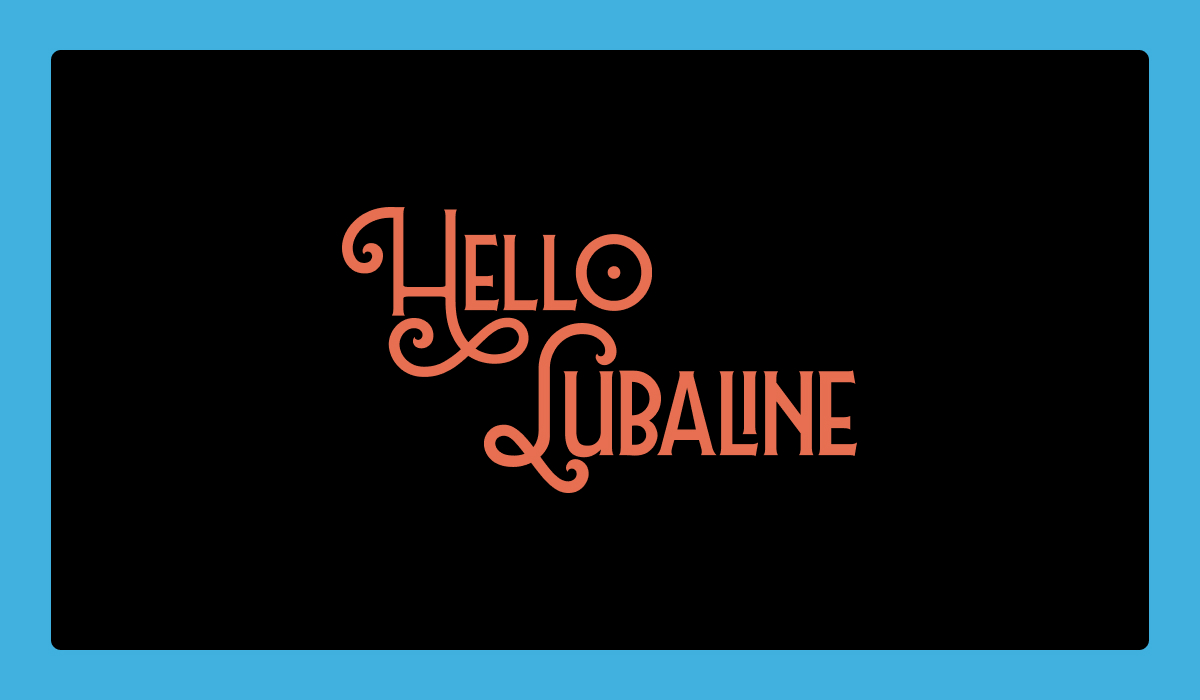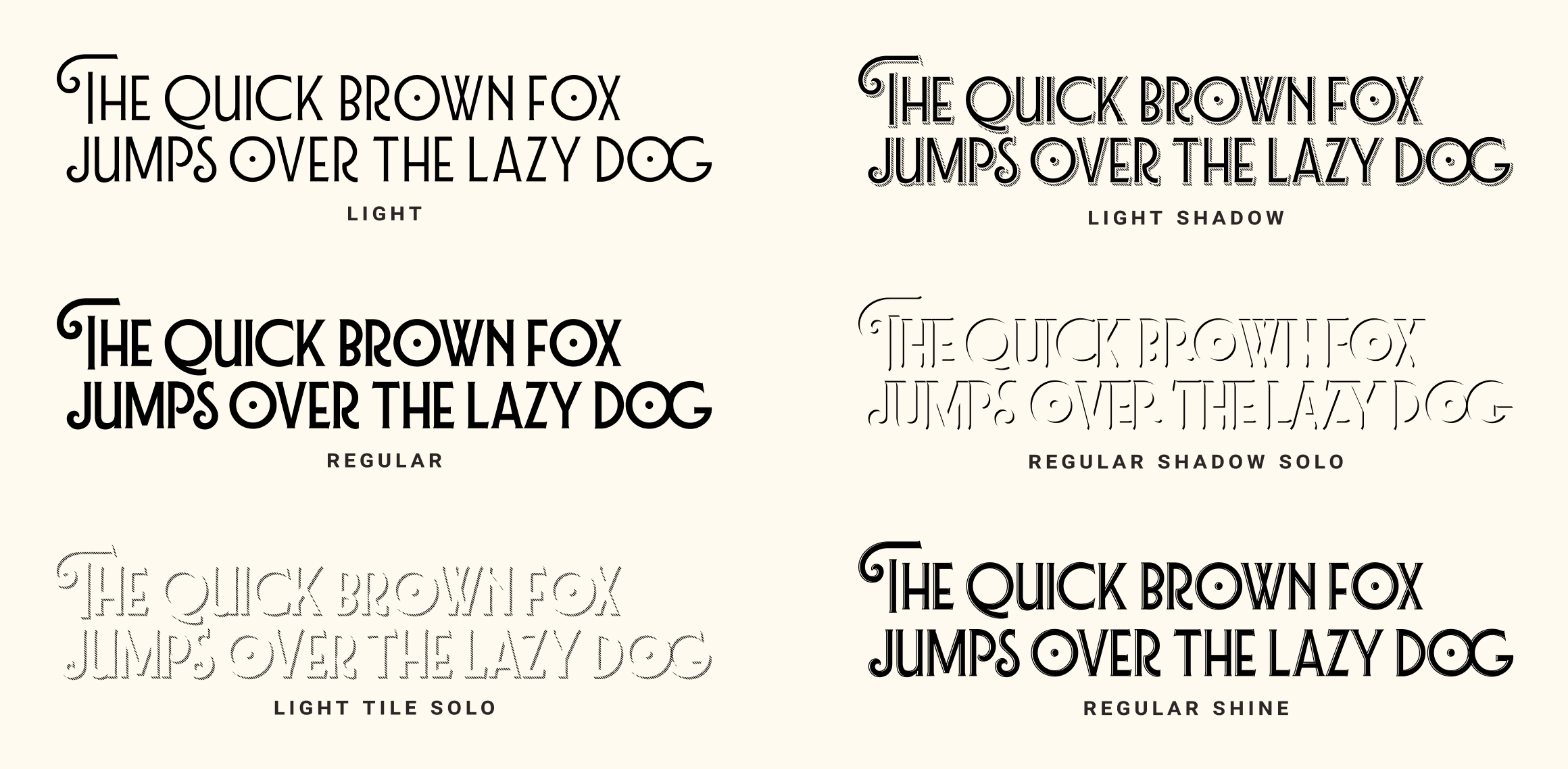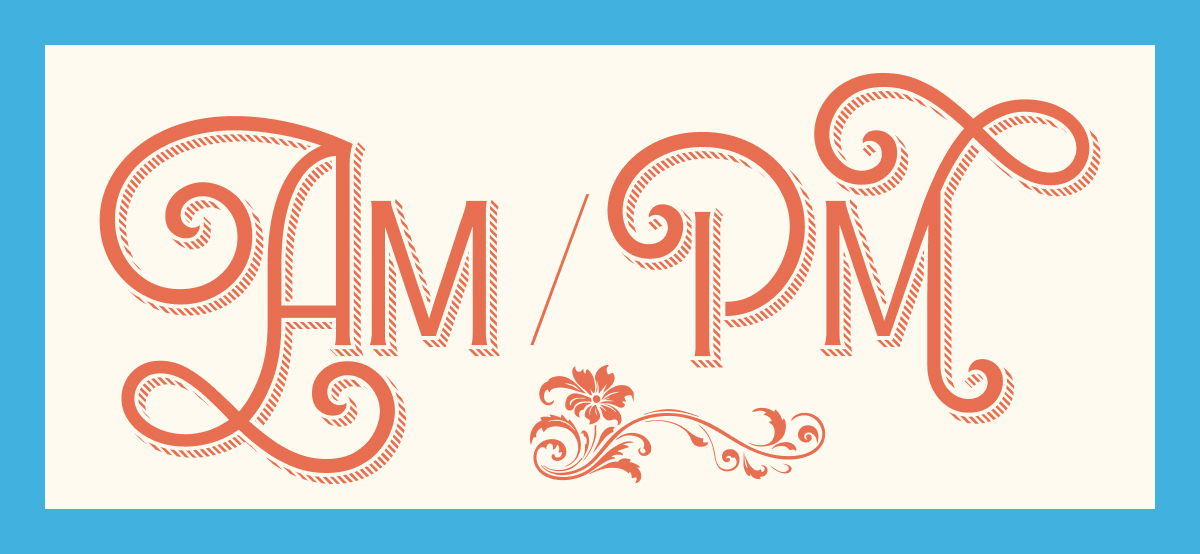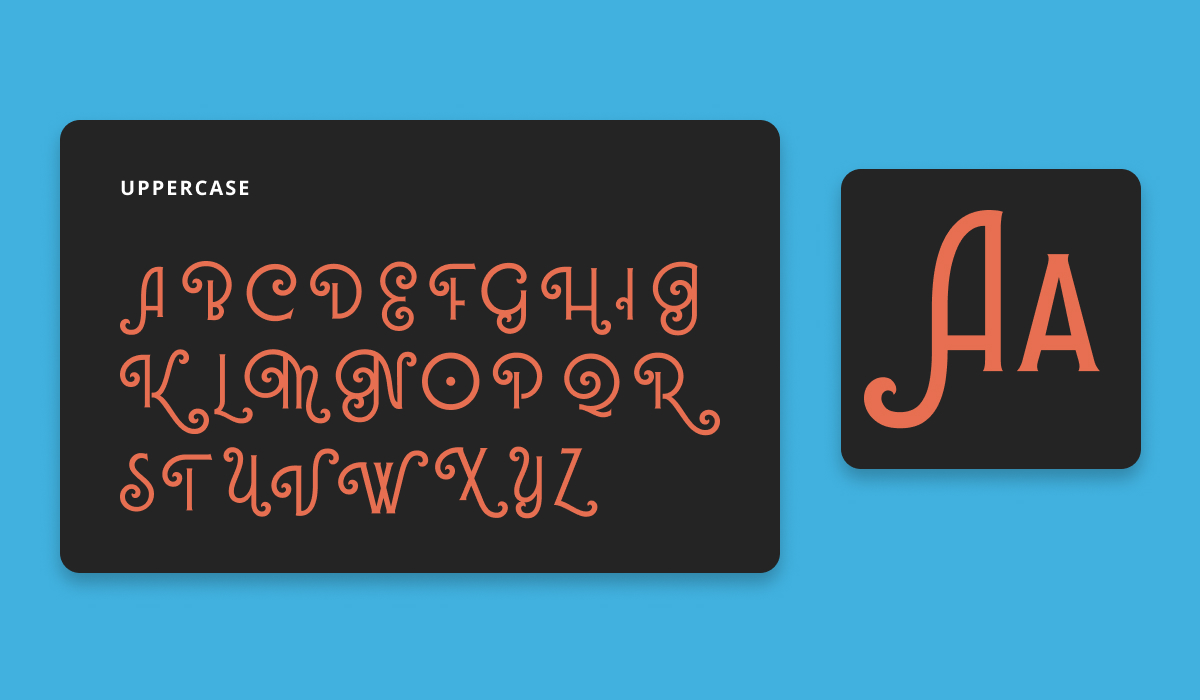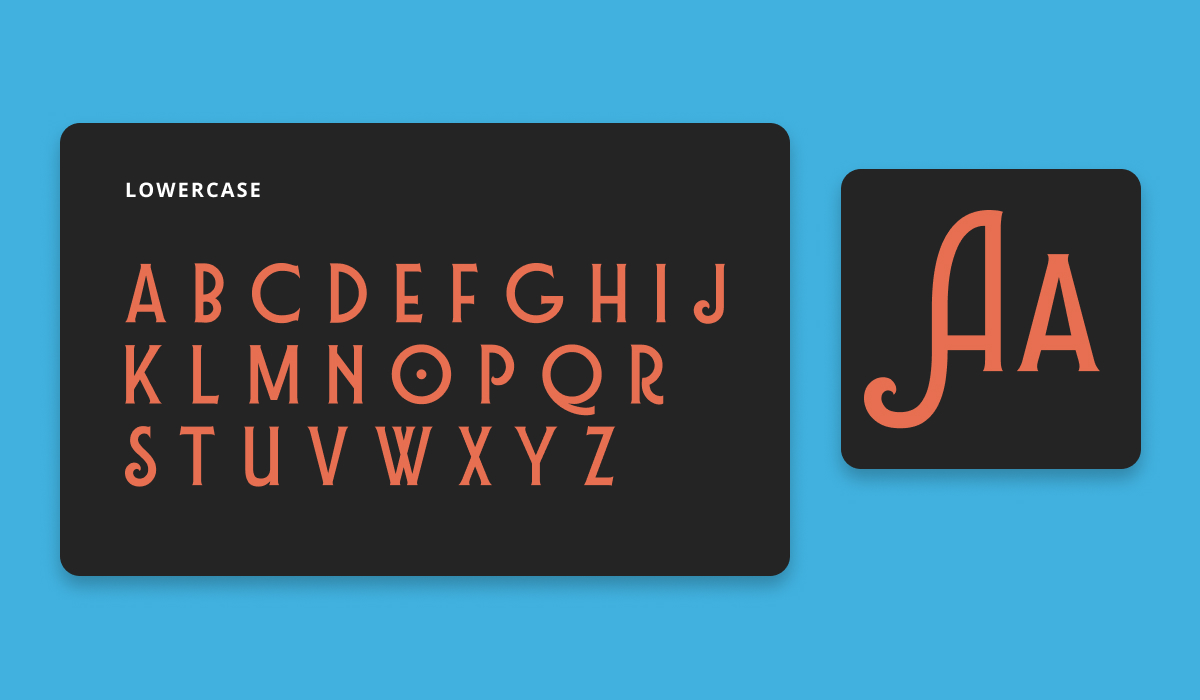
Lubaline: The Ultimate Decrative Swashy Display Typeface
About Lubaline
Lubaline is a bold, decorative all-caps display typeface bursting with Art Deco flair and maximalist energy. It’s layered, swashy, and unapologetically extravagant — perfect for designs that demand the spotlight.
Lubaline thrives in book covers, editorial headlines, brand identities, and packaging, where you want to leave a lasting impression. With multiple layers, shadow options, and dramatic swashes, this typeface gives you the tools to build ornate, high-impact typography. It’s confident, lavish, and designed to steal the show.
Type Details
- Available in: light, regular, shadow, shine styles
- Each letter has multiple swashy style alternates
- Inspired by legendary typographer Herb Lubalin, known for his ornate lettering
Lubaline is available in Light, Regular, Shadow, and Shine styles, offering a versatile set of options for layering and welding in your design. What truly sets it apart is its collection of highly ornate, extravagant style alternates. Each letter includes multiple swashed variations, allowing you to choose the perfect flourish for your composition. In addition, there is a rich selection of expressive ligatures to elevate your project even further.
Behind the Typeface
Designed by Maximiliano Sproviero, Lubaline is a love letter to the legendary Herb Lubalin — a typographer who rewrote the rulebook with his expressive layouts and custom letterforms. This typeface channels that same rebellious spirit, fusing semi-serifs with Art Deco geometry and modern theatricality. It’s not just a font — it’s an homage, a statement, and an invitation to break the rules beautifully.
Lubaline for Typography and Design
Lubaline works best as a statement piece for headlines, brand names, and bold, typographic key messaging where you want maximum impact. The layering system enables flexibility, allowing you to stack the Regular, Shadow, and Shine styles for a dimensional Art Deco effect. The extensive swash alternates also give you plenty of customization options.
It would be best to pair Luabline with clean sans-serif body text that won't compete, mix ornate and simpler letterforms to maintain readability. The ligatures add nice typographic details, and the color layering possibilities are endless for creating rich, textural effects. Lubaline shines in book covers, editorial design, and branding, where you want to convey theatrical and creative confidence.